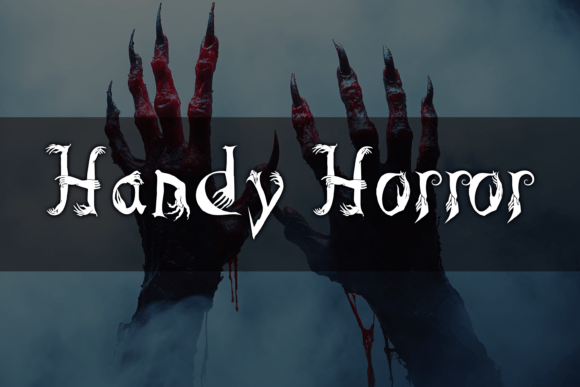
Unleash the Fear: Handy Horror Font is Here
As a designer, have you ever found yourself stuck on a project, searching for the perfect font to convey the eerie atmosphere you’re trying to create? You’ve scrolled through countless options, but nothing seems to fit the bill. That’s when you stumble upon the perfect solution – Handy Horror Font.
This spine-chilling font is specifically designed to bring the horror genre to life in your designs. With its unique claw-like strokes and jagged edges, Handy Horror Font is perfect for creating a sense of foreboding and dread. Whether you’re working on a haunted house poster, a creepy invitation, or a gothic branding project, this font is sure to send shivers down the spine.
What makes Handy Horror Font so valuable for designers is its excellent readability, making it a great choice for projects where you want to convey a sense of terror without sacrificing legibility. With Handy Horror Font, you can create designs that are both haunting and effective, making it an essential addition to any designer’s toolkit.
Key Features of Handy Horror Font
- Font Family: Handy Horror Font is a unique, horror-themed font designed for use in various applications, including gaming, horror movies, and haunted attractions.
- Unique Characteristics: Handy Horror Font features a unique, distressed design, with a focus on creating a spooky and eerie atmosphere.
Handy Horror Font Review
At first glance, Handy Horror Font is a bold, attention-grabbing choice for any design project. ✨ I love how the distressed texture and eerie aesthetic instantly transport me to a spooky atmosphere. The font is perfect for Halloween-themed designs, horror movies, or any project that requires a creepy vibe.
- The distressed texture adds a unique, handmade feel to the font.
- The bold, irregular shapes create a sense of tension and unease.
- The font is highly customizable, allowing designers to adjust the texture and color to suit their needs.
- The font may be too over-the-top for some designs, potentially overwhelming the message.
- The distressed texture may not be suitable for text-heavy designs, as it can be difficult to read.
- The font is not suitable for corporate or professional designs, as it may come across as too playful or gimmicky.
Overall, Handy Horror Font is a fun, creative choice for designers looking to add a spooky twist to their projects. While it may not be suitable for every design, it’s a great option for those who want to make a statement or create a memorable brand identity.
Tips for Getting the Most Out of Handy Horror Font
For the best results, use Handy Horror Font in bold or italic styles to add emphasis and create a spooky atmosphere.
Pair Handy Horror Font with other fonts that have a similar horror or gothic theme to create a cohesive look.
Experiment with different font sizes and colors to create a sense of depth and dimension.
Handy Horror Font is perfect for creating spooky invitations, posters, and social media graphics for Halloween or horror-themed events.